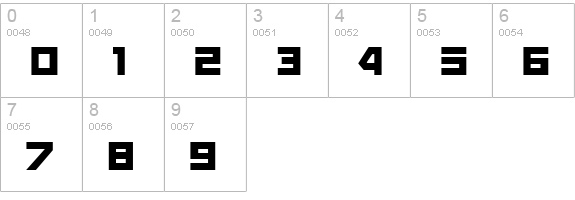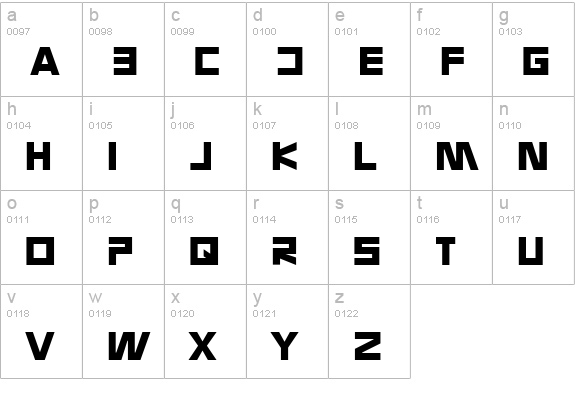
Nasalization Galaxy Font Details
Nasalization Galaxy font is a sleek and futuristic typeface that exudes a sense of space and innovation. Its bold and geometric letterforms give off a modern and dynamic vibe, making it perfect for projects that require a cutting-edge aesthetic. With its unique design elements and crisp lines, Nasalization Galaxy font is sure to make a statement in any design application. The best part? Nasalization Galaxy font is available for free download at FontsMarket.com! This means that you can easily access this striking font and use it in your projects without any cost. Whether you're working on branding, posters, websites, or any other creative endeavor, Nasalization Galaxy font will add a touch of sophistication and style. Download it today and take your designs to the next level!